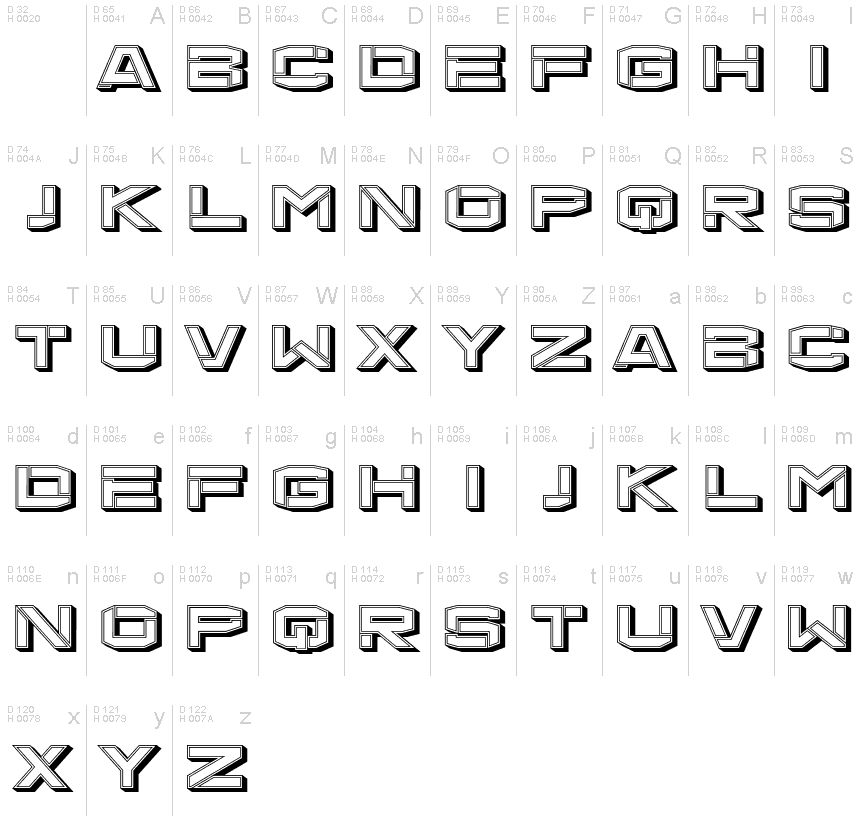
Perdite Hollow Regular
Perdite Hollow is a mesmerizing font typeface that will take your projects to the next level. Designed by Vladimir Nikolic, it boasts a futuristic and techno style that will give your designs a cutting-edge look. Its semi-bold weight and extra-expanded width make it perfect for attention-grabbing headlines, logos, posters, and any other creative project that requires impact. Whether you're working on sci-fi films or tech startups, Perdite Hollow will add an element of sophistication and modernism to your work. Try it out today and watch as your designs transform into works of art!